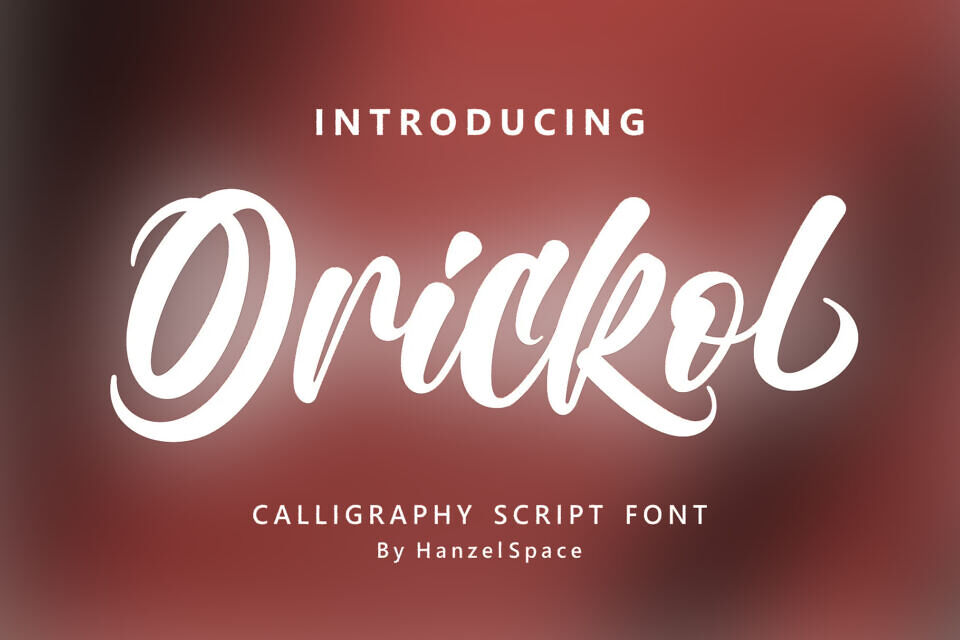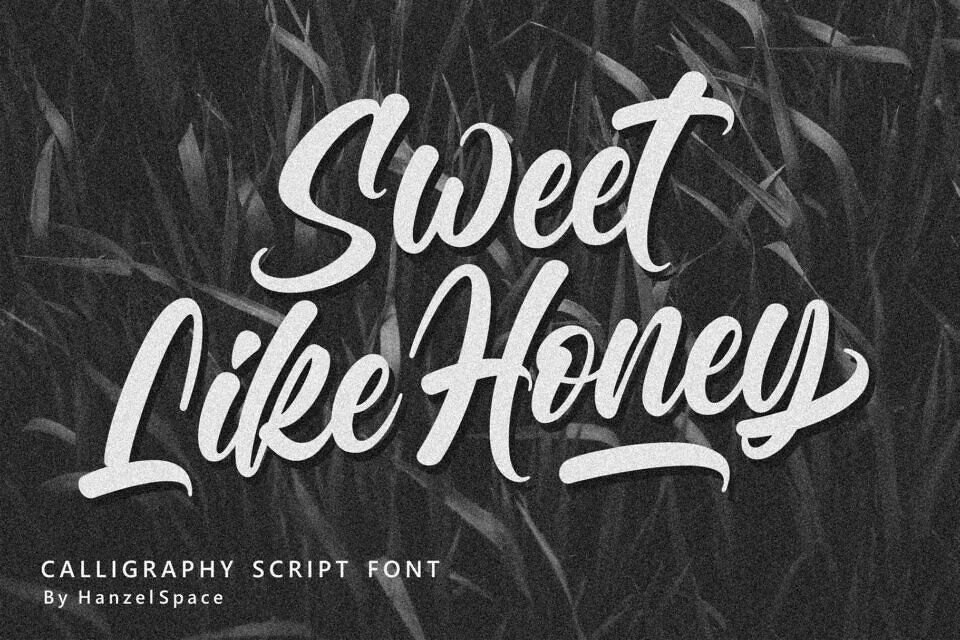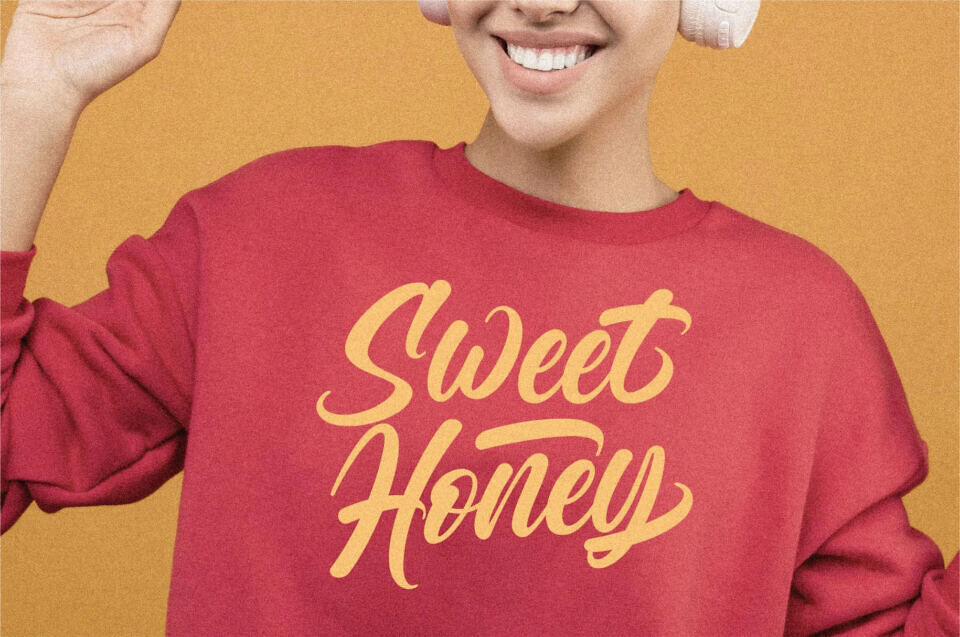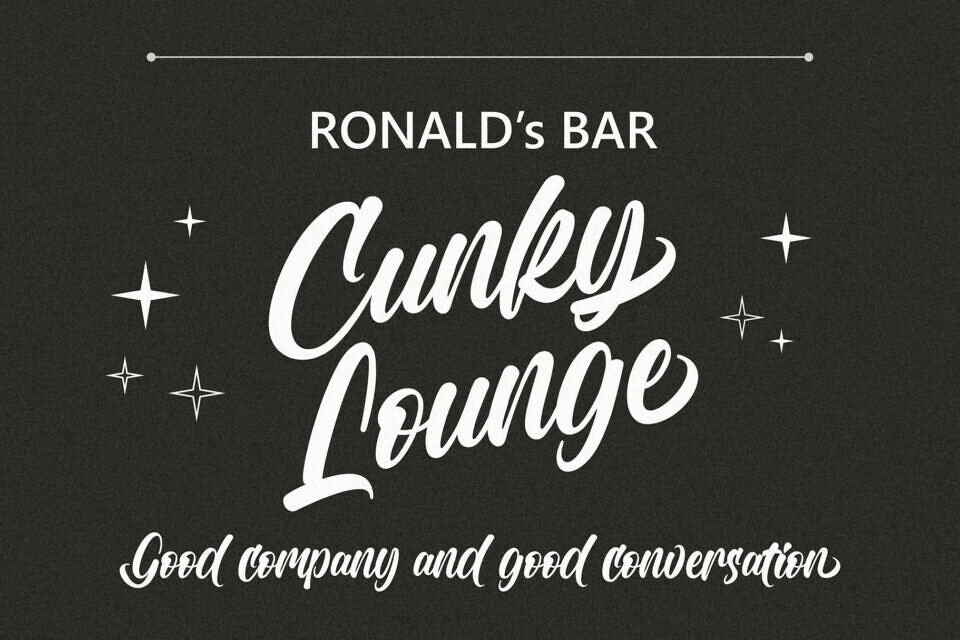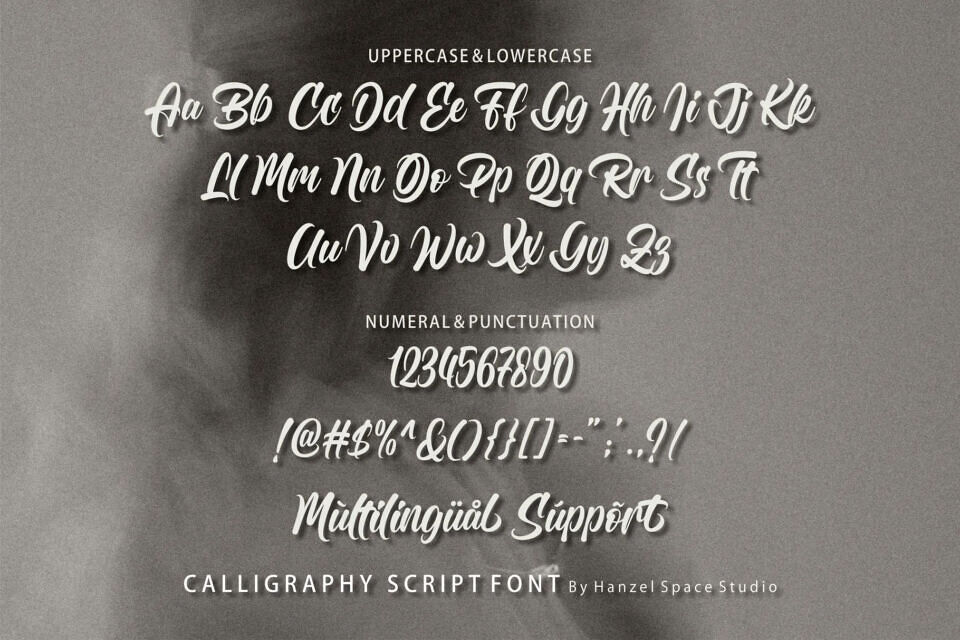
Orickol font is designed naturally and very smoothly so it has a unique character. This type of font is perfectly made to be applied especially in logos, and the other various formal forms such as invitations, labels, logos, magazines, books, greeting / wedding cards, packaging, fashion, make up, stationery, novels, labels or any type of advertising purpose.